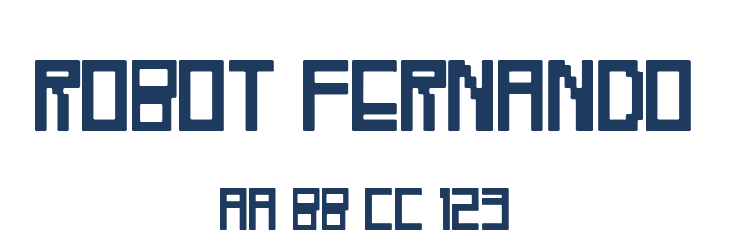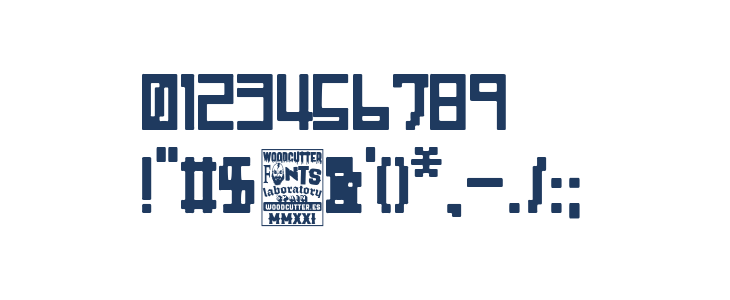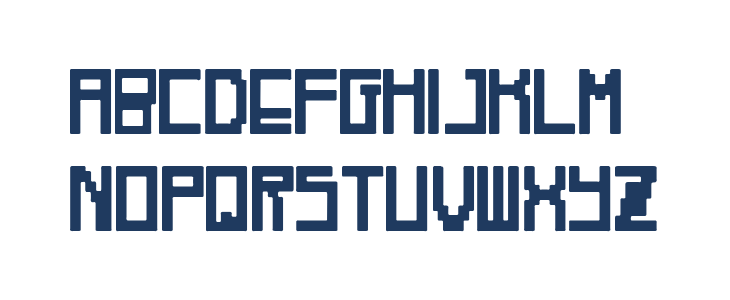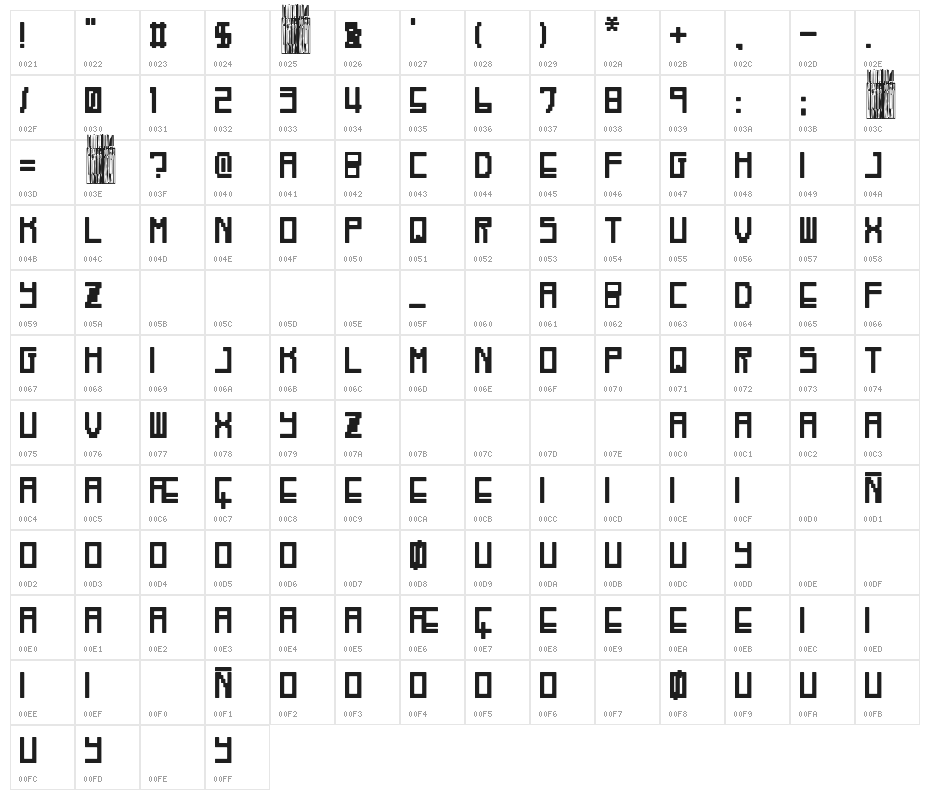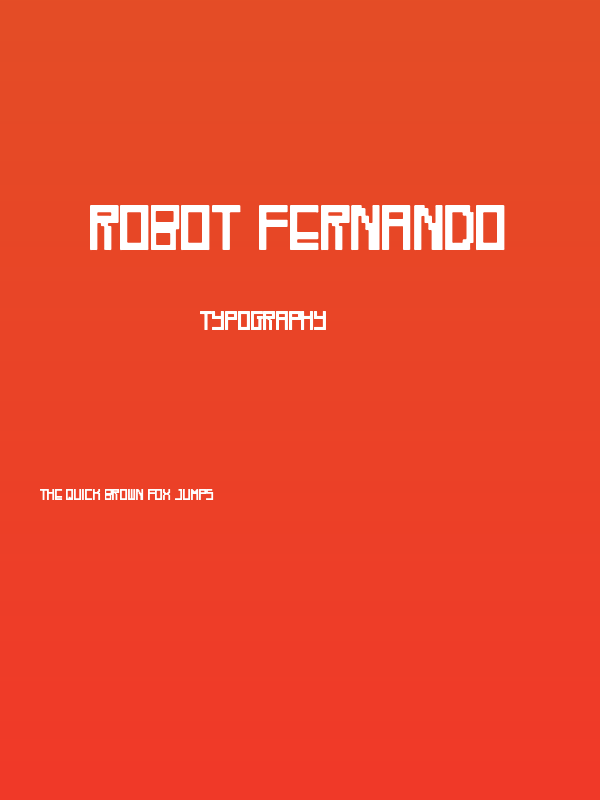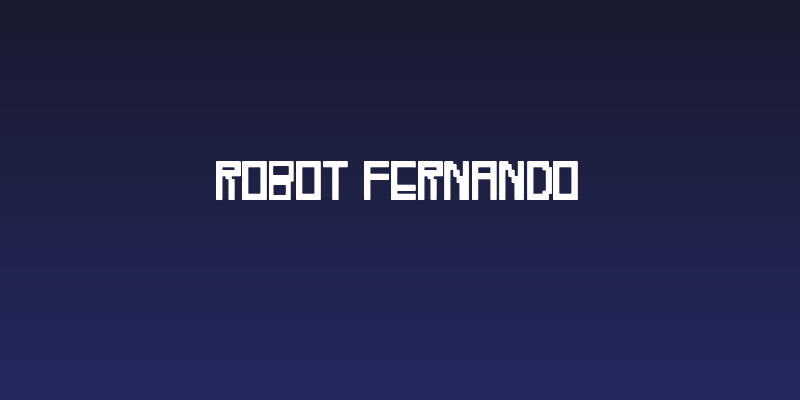
Robot Fernando Font
Robot Fernando Description
A geometric, blocky sans-serif font with a pixelated, robotic appearance. All characters are constructed from straight lines and right angles, giving a digital, mechanical feel. The font maintains consistent stroke thickness and features squared-off terminals.
| Overall Style | Decorative, Modern, Digital |
| Use Case | Headlines, Logos, Posters, Display text |
| Proposed Projects | Video game titles, tech branding, sci-fi posters, digital interfaces, retro-themed graphics. |